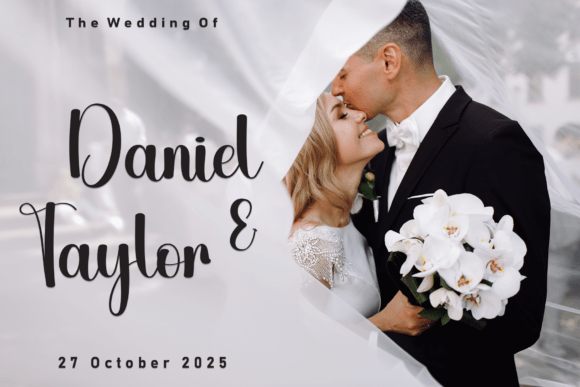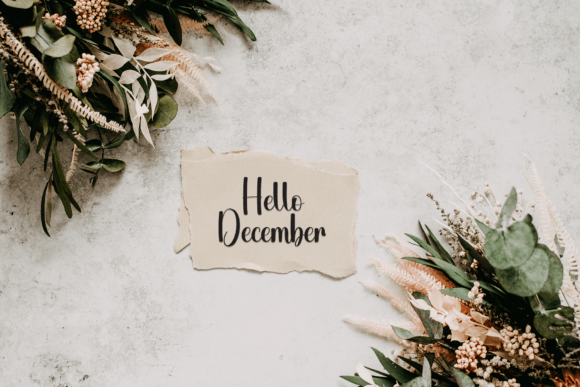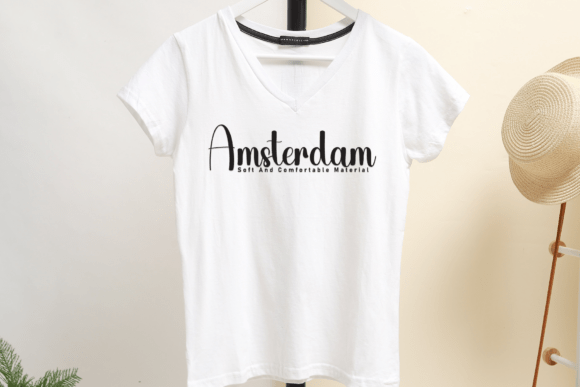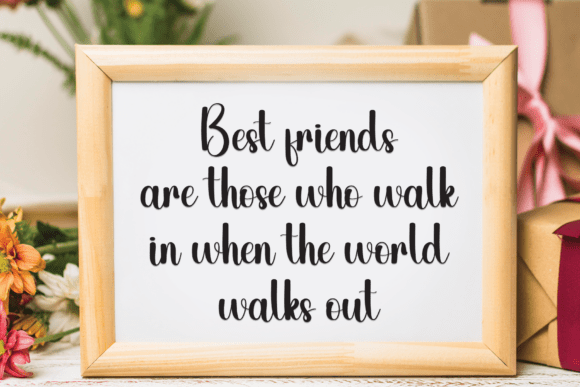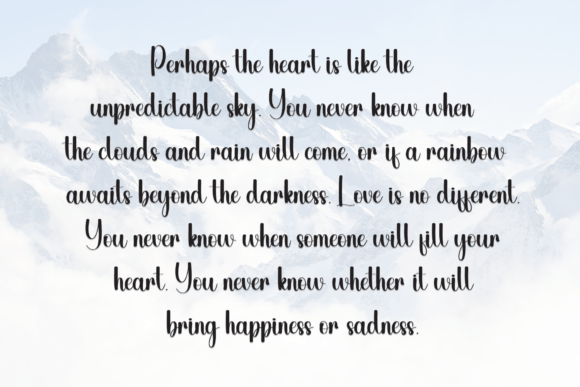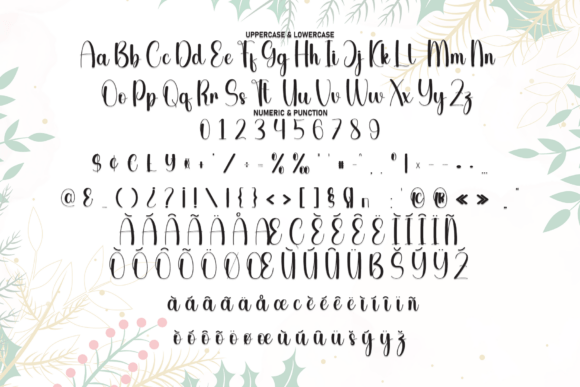
Unwrapping the Magic of the Christmas Font
There’s something special about unwrapping a creative idea, isn’t there? The spark of inspiration that ignites when you stumble upon the perfect combination of style and elegance. For designers, this feeling is a regular occurrence, but it’s always exciting. And that’s exactly what happens when you discover the Christmas Font.
This beautiful script font exudes artistic flair and contemporary elegance, making it a perfect addition to any design project. With its fluid brush strokes, dynamic curves, and expressive letterforms, it captures the essence of hand-painted calligraphy with a modern twist. Whether you’re creating logos, invitations, packaging, or social media graphics, the Christmas Font adds a creative and sophisticated touch that’s sure to leave a lasting impression.
Key Features of Christmas Font
- Font Family: A custom-designed font family with a festive theme, perfect for holiday projects.
- Character Set: Includes uppercase and lowercase letters, numbers, and special characters, making it a versatile font for various projects.
- Unique Characteristics: Features a distinctive, hand-drawn design with a whimsical feel, adding a touch of holiday magic to any project.
Designer Review: Christmas Font
At first glance, Christmas Font is a charming and festive addition to any holiday design project ✨. The font’s playful, handwritten feel immediately evokes the magic of the season. The bold, colorful letters are sure to stand out and add a touch of whimsy to any design.
However, upon closer inspection, I noticed a few limitations ⚠️. The font’s irregularities, while charming at first, can sometimes make it difficult to read, especially in smaller sizes. Additionally, the font’s limited character set may not be suitable for projects that require a wide range of characters.
Here are some specific pros and cons:
- ✨ Unique, playful feel that’s perfect for holiday projects
- ⚠️ Can be difficult to read in smaller sizes
- ⚠️ Limited character set may not be suitable for all projects
- ✨ Easy to use and customize
- ⚠️ May not be suitable for professional or formal projects
Overall, I think Christmas Font is a great addition to any designer’s holiday toolkit, but it’s not a one-size-fits-all solution. It’s perfect for projects that require a playful, festive feel, but may not be suitable for more formal or professional projects.
Christmas Font is perfect for:
- Christmas card designs
- Holiday party invitations
- Gift tag designs
- Seasonal social media graphics